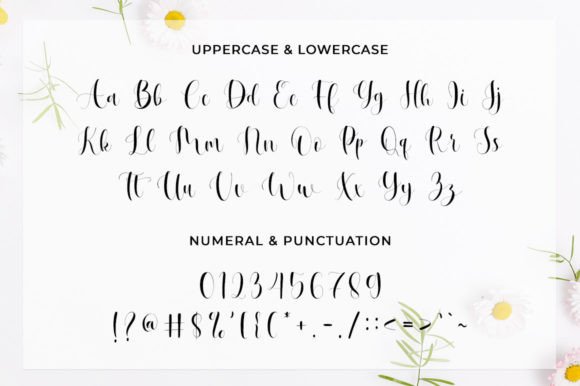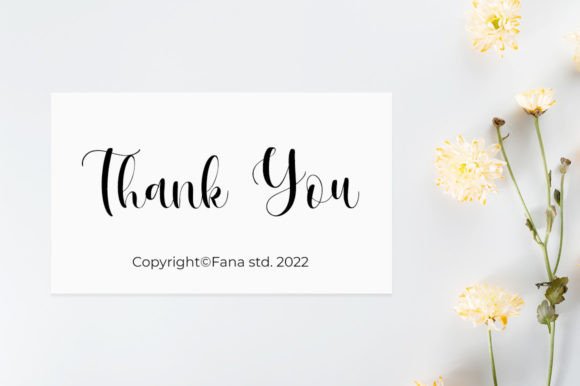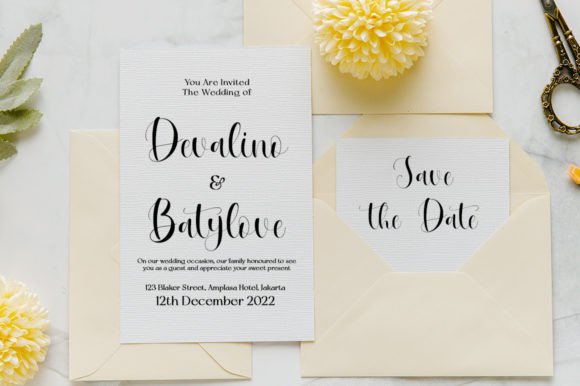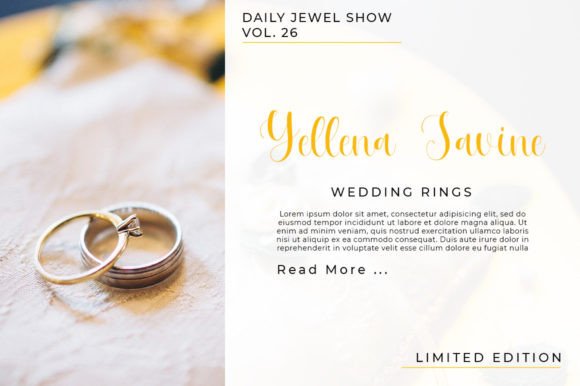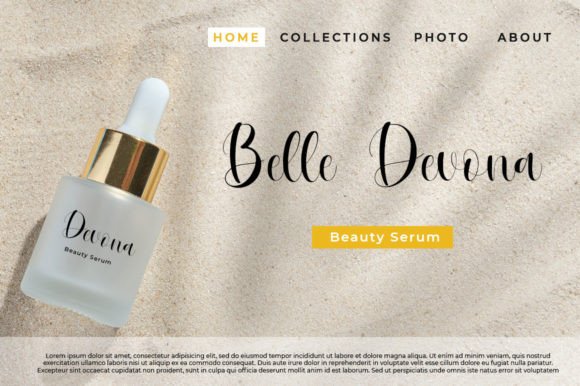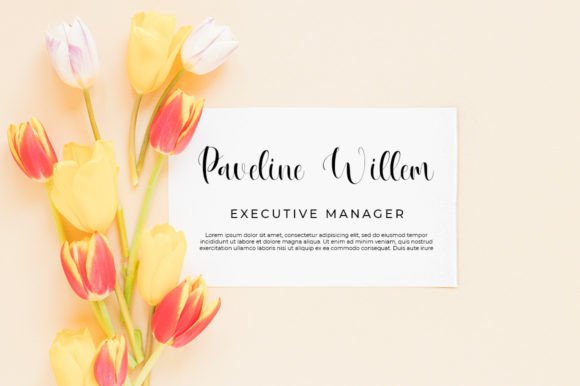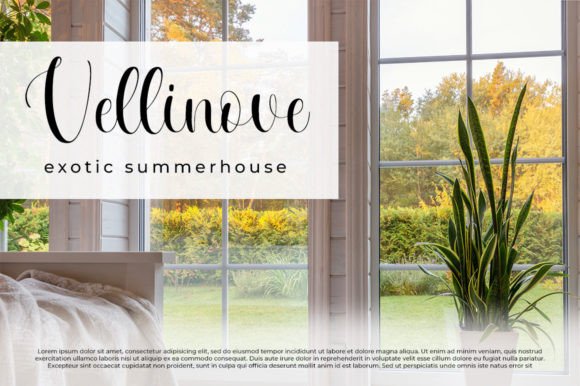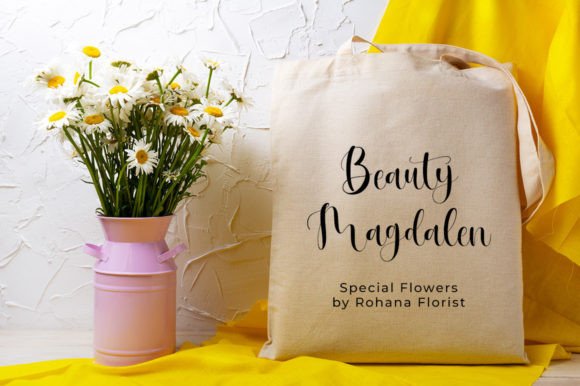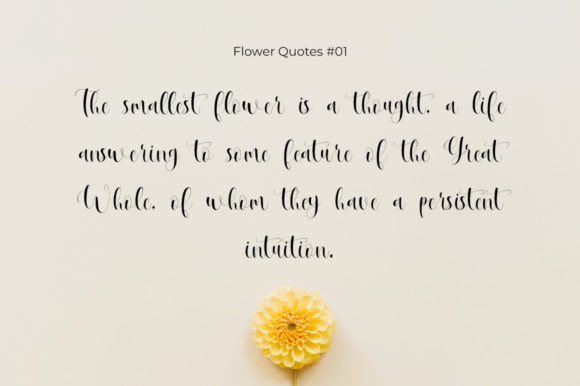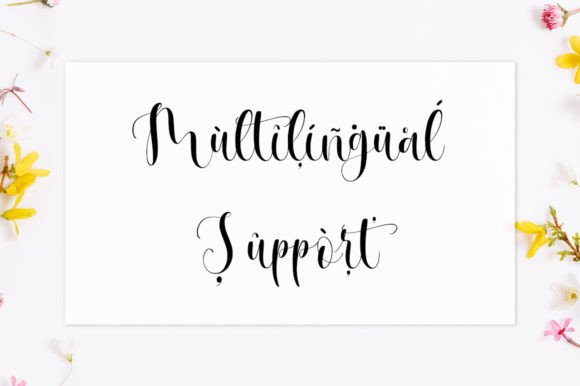
Saylovine Font
Saylovine Script Font – Elegant and Classy Typeface
The Saylovine Script Font is a beautiful and elegant typeface created to give your projects a personal and refined touch. With its classy handwritten strokes and modern flow, it offers a perfect blend of sophistication and style. Whether you’re working on logos, invitations, or digital content, this font ensures your work stands out with grace.
A Script Font with Modern Elegance
The Saylovine Script Font combines smooth handwritten curves with a modern calligraphic influence. Its stylish design adds personality, while its clean readability makes it practical for both casual and professional projects. Because of this, it works beautifully in a variety of creative contexts.
Perfect for Weddings and Branding
One of the best uses of the Saylovine Script Font is in wedding stationery such as invitations, menus, and thank-you cards. Its elegant look makes every event feel more special. At the same time, it enhances branding, logos, and packaging by adding a handwritten charm that feels modern and professional.
The Saylovine Script Font adapts across multiple design needs. From social media graphics and advertisements to product packaging and photography watermarks, it adds an elegant handwritten appeal. Its adaptability makes it suitable for both print and digital applications.
Why Designers Love Saylovine Font
Designers appreciate the Saylovine Script Font because it balances elegance with usability. Its stylish handwritten strokes make designs unique, while its clarity ensures they remain professional. This makes it a must-have for both creatives and professionals.